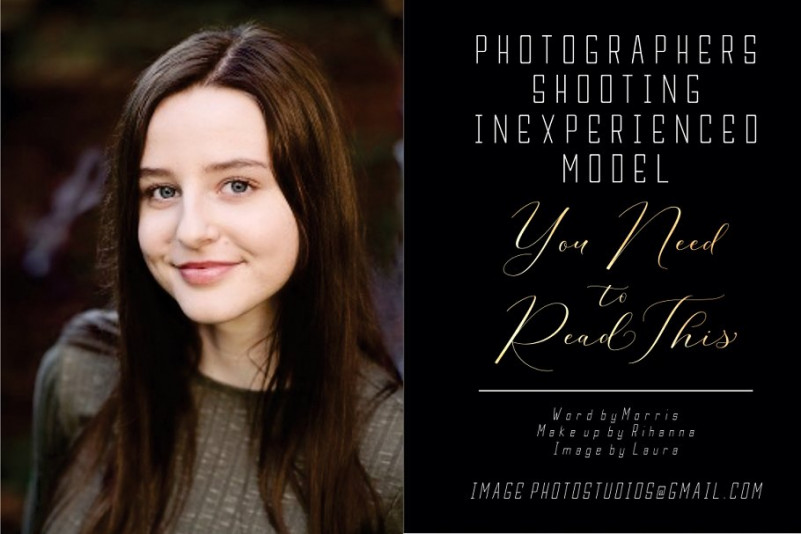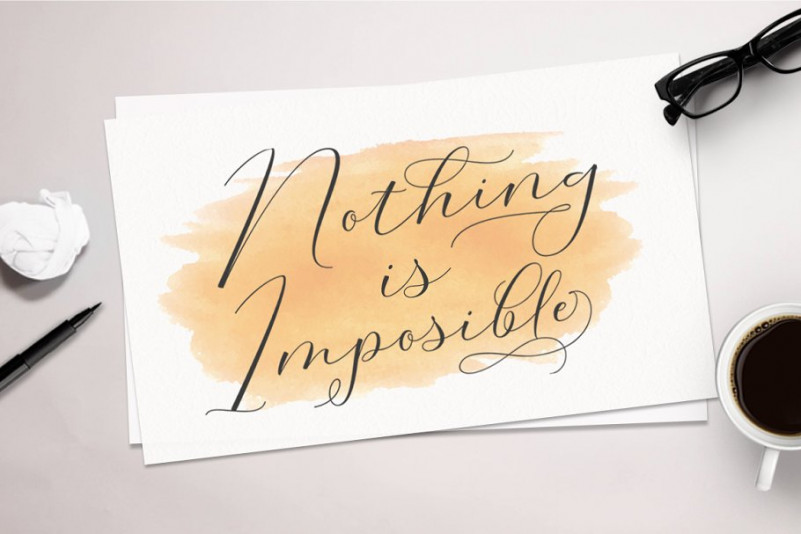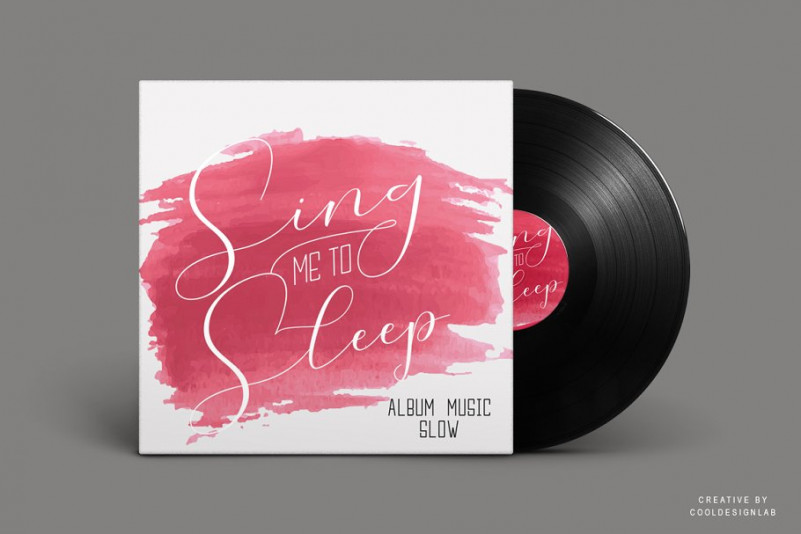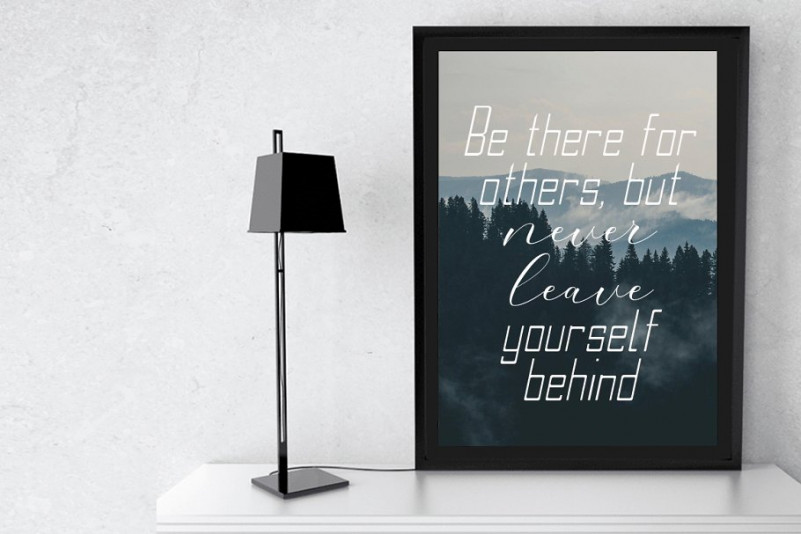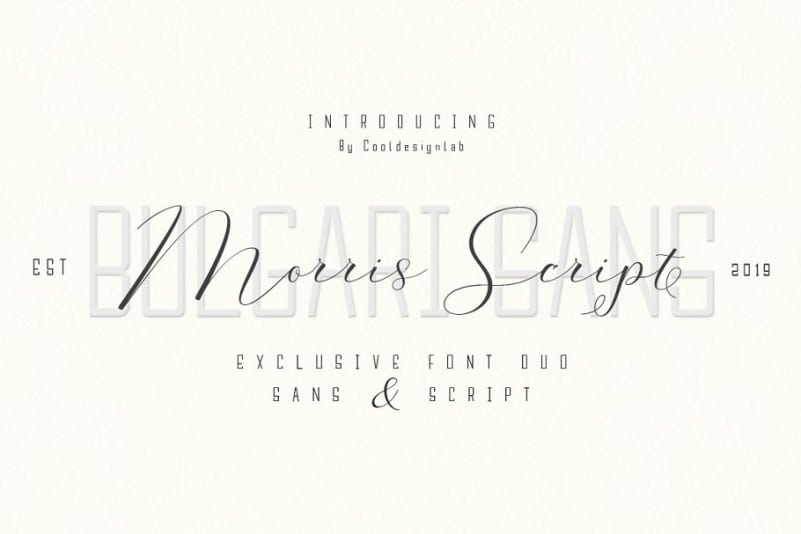
Morris Script Font Duo
Morris Script Font Duo – Free Demo
This is handwritten calligraphy modern font looks elegant, classy and natural move. This font is ideal for branding and decorate your any project. Introducing Morris Font. Morris Script Font Duo with calligraphy style, decorative characters and basic dance lines! So beautiful on invitations like greeting cards, branding materials, business cards, quotes, posters, and more! Bonus Bulgari Sans (Regular, Slant, Bold) . This sans font is very classy which contains uppercase & lowercase characters, numbers and various punctuation marks. This font looks really cool with a casual style.